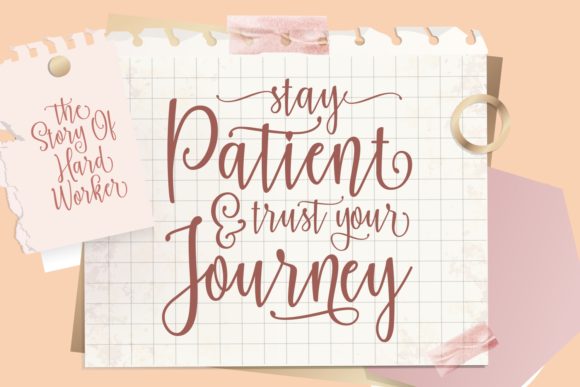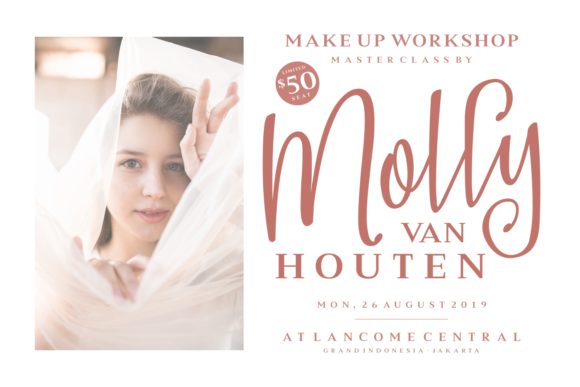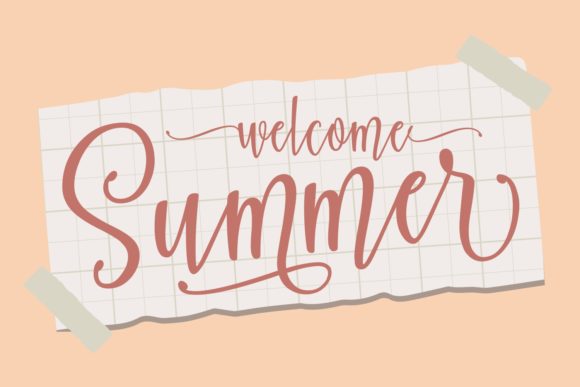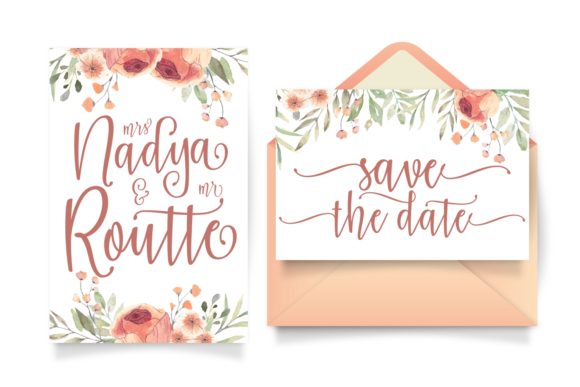
Microleth Font
About Microleth Font
Microleth is a truly stunning script with a lovely and friendly feel. Use it to add a simple charm to any design project!